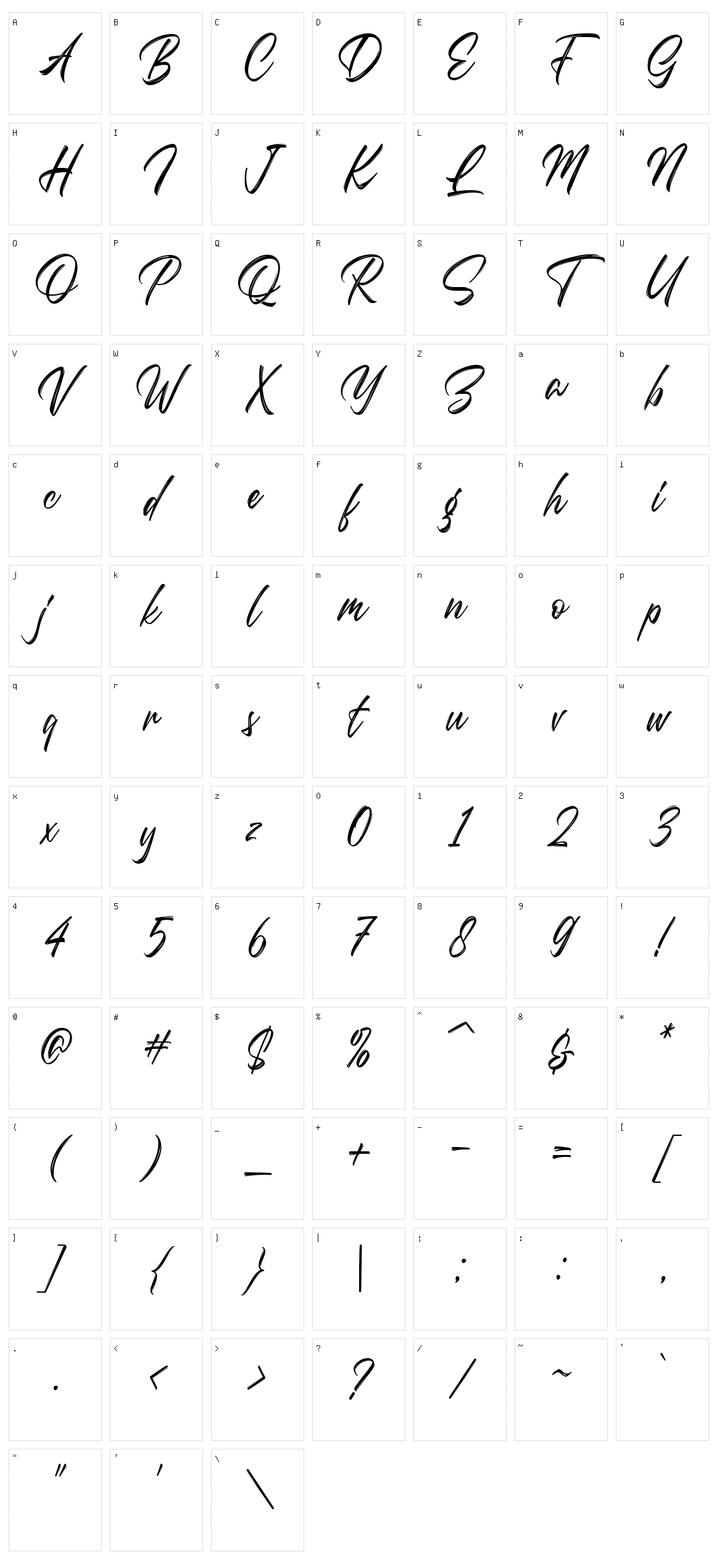
The free font Questario is carefully designed by Bangkit Tri Setiadi, showcasing a thoughtful balance of creativity and usability and falls under the Script font style. When you download the ZIP file, it contains only 45.1 KB of font files, making it lightweight and quick to download. Please review the license details below to understand permitted usage and distribution rights. If license information is not available, we recommend using this font for personal projects only or contacting the author directly for commercial usage permissions.